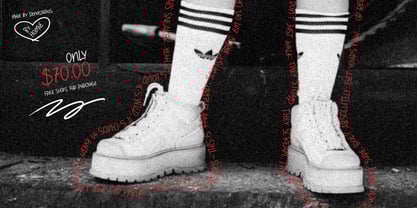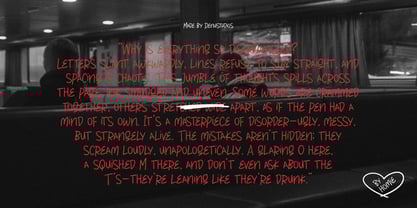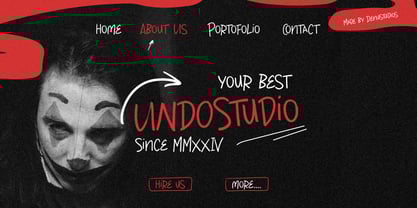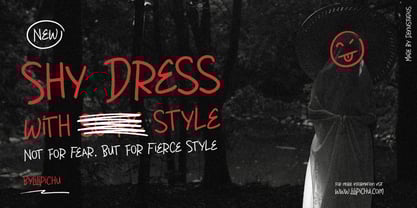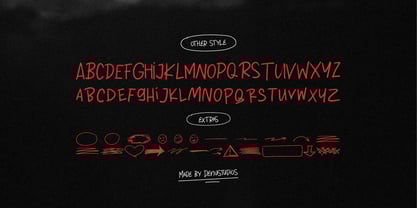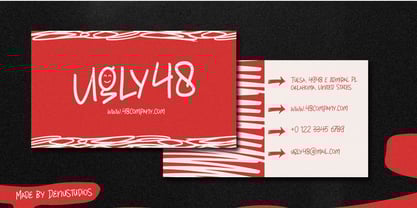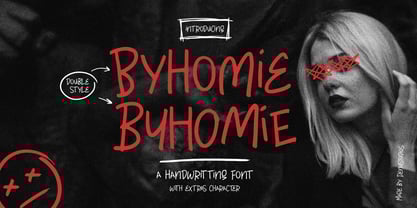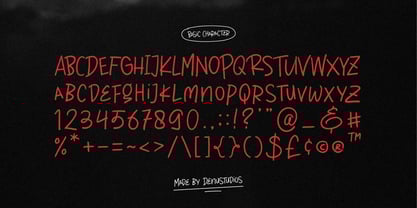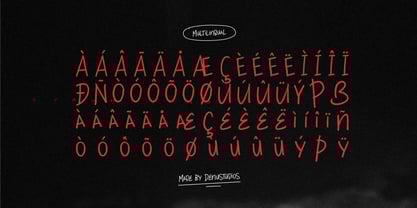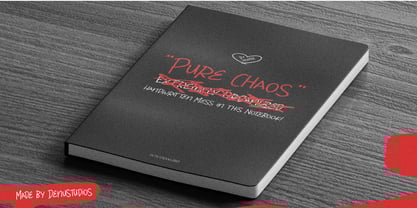
By Homie
von Denustudio
Die Schriftfamilie By Homie wurde von Dede Nugraha entworfen und von Denustudio veröffentlicht. By Homie enthält 2 Stile und Familienpaketoptionen.
ByHomie | Handwritting Font, from Denustudios, suitable for any projects such as: logos, branding projects, homeware designs, product packaging, mugs, quotes, posters, shopping bags, t-shirts, book covers, name card, invitation cards, greeting cards, label, photography, watermark, special events, and all your other lovely projects that need a Handwritting Font taste.